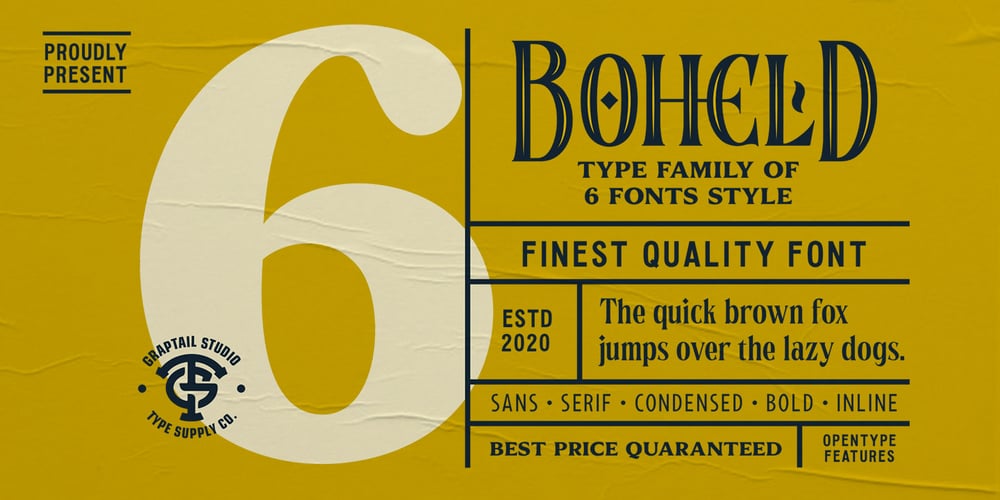
Boheld Font Family was designed by Teuku Deky Firnanda and published by Graptail. Boheld contains 3 styles and family package options. Boheld comes with 6 different style variations such as Sans, Serif, Bold, Condensed, and Inline. It is inspired by classic labels, tickets, posters, and more.